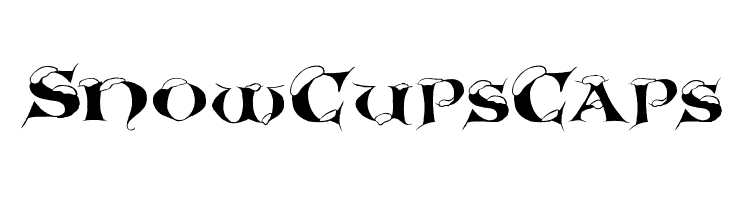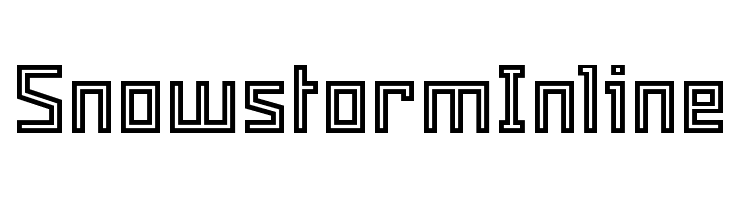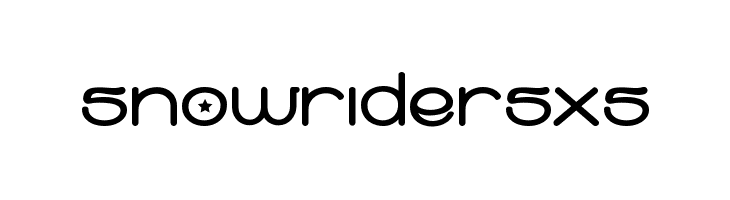
( Denis Sherbak - yavlenie.com )
A bold, geometric inline font with a modern, structured appearance.
( Denis Sherbak - yavlenie.com )
A bold, distressed font with a rugged, weathered appearance.
( Denis Sherbak - yavlenie.com )
A geometric, modern font with clean lines and sharp angles.
( Fonts by Dieter Steffmann )
A bold, decorative font with snow-capped characters perfect for winter themes.
( Emberlorna )
A playful, handwritten font with a whimsical and casual style.
( Fonts by Noah Type )
A playful, hand-drawn font with festive elements and a modern twist.
A graceful script font with flowing, cursive letterforms.
( Fonts by Tokokoo Studio )
A bold, festive font with a snowy, frosted design on each character.
A bold, playful handwritten font with rounded, slanted characters.